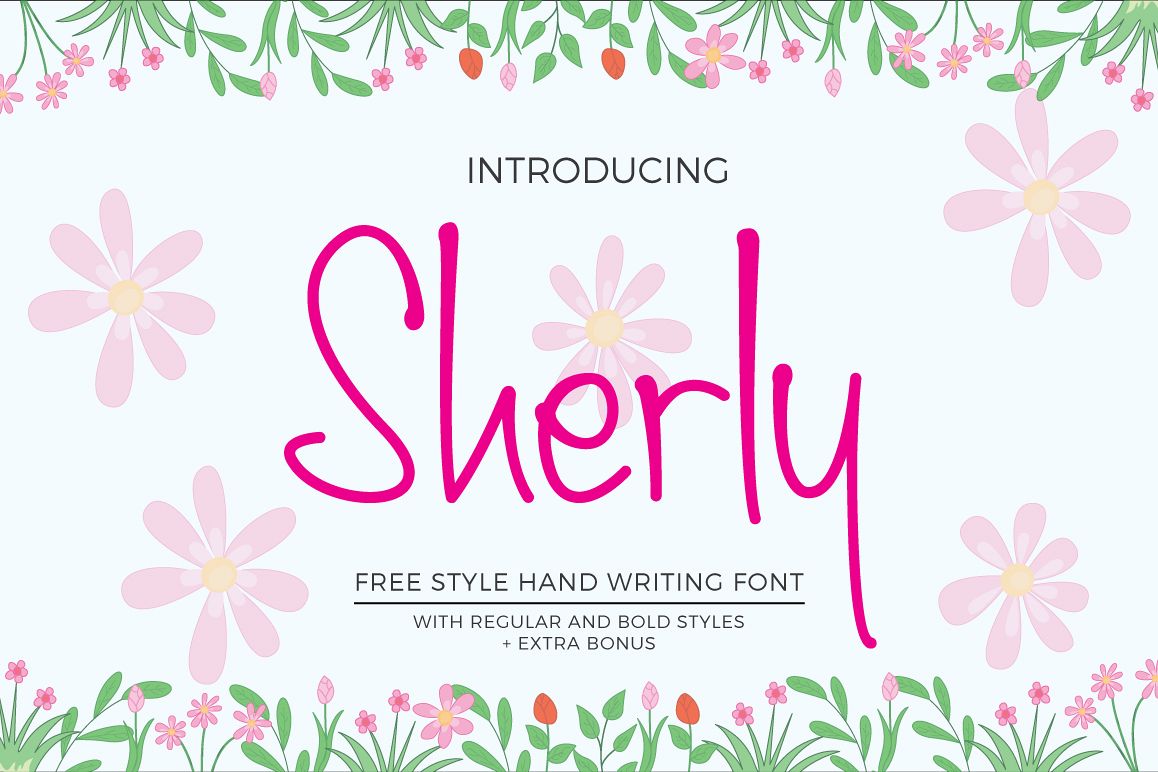
sherly
sherly regular
sherly bold
Sherly is a simple handwritten font that great use as posters, greeting cards, wedding invitations, recipe cards, menu design, quotes, tagline, and other simple notes purposes. Sherly available in regular and bold weigh styles that's great for both content and displays purposes.